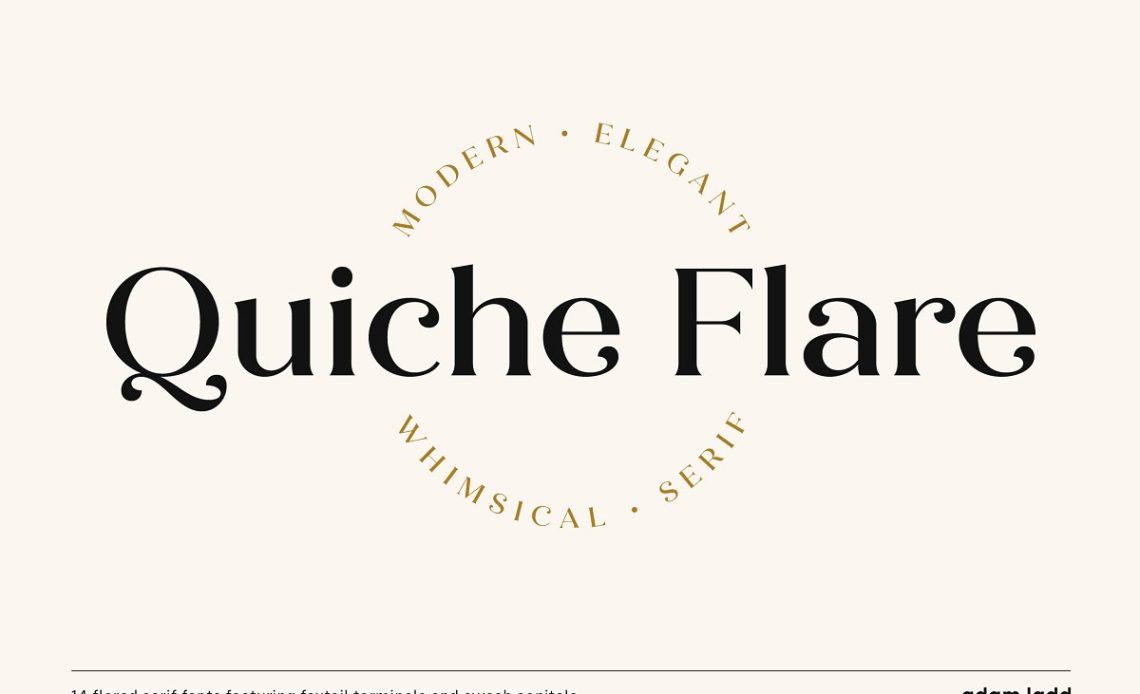
Looking for the perfect font to make your designs stand out? Look no further than Quiche Flare Font Family. Created by the talented Adam Ladd, this high-contrast, flared serif typeface is the best font for title posters, and is currently on an amazing 80% off introductory sale at just $19 (regular family price = $99).
The 14 font family weights range from thin to black with matching italics, making them ideal for a variety of display applications including print, web, branding, advertising, magazines, products, packaging, labels, invitations, stationery, and even fashion. The design exhibits elegance and a touch of whimsy with the foxtail terminals, while the flared serifs add more interest, beauty, and movement to the characters.
Quiche Flare also boasts a large x-height that helps it appear modern and bold, making it perfect for any creative project that needs to make a statement. And with its extensive Latin language support, this font family will work great right away with most any software (MS Word, Pages, etc.).
But what really sets Quiche Flare apart are its OpenType features. With swash capitals, stylistic alternate "a," ligatures, fractions, subscripts, and superscripts, this font family is incredibly versatile and perfect for any creative project that needs that extra touch of style.